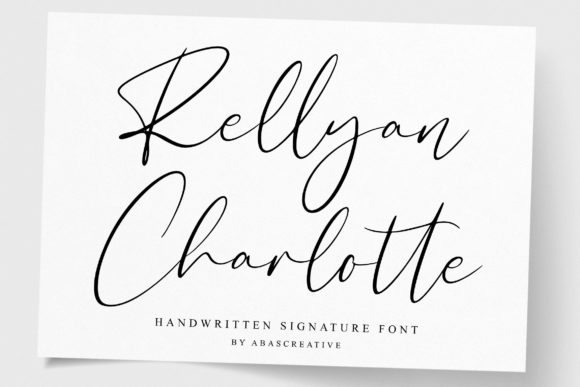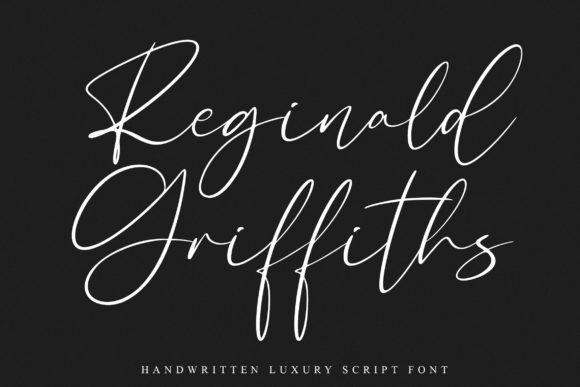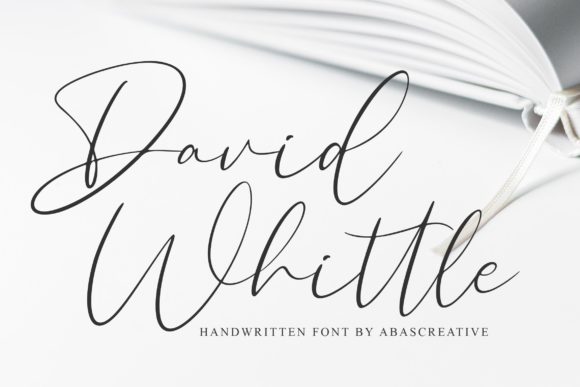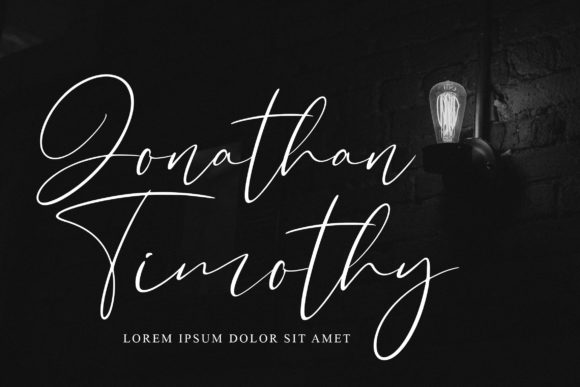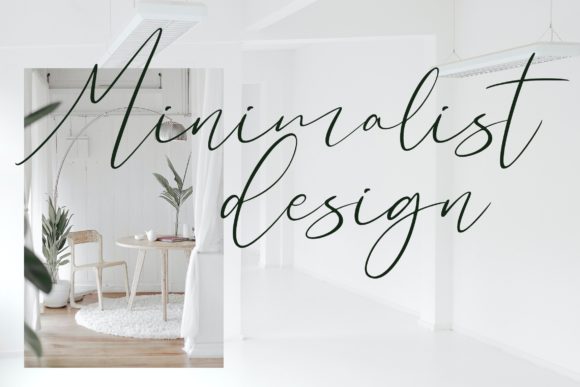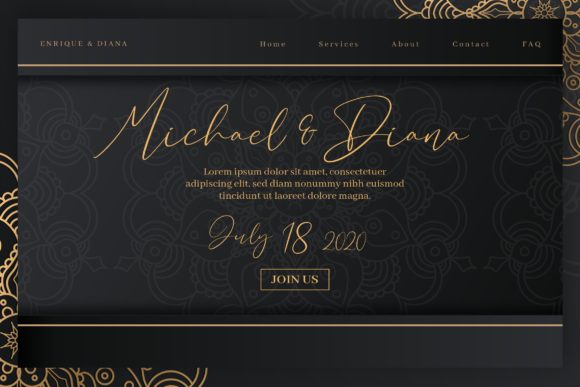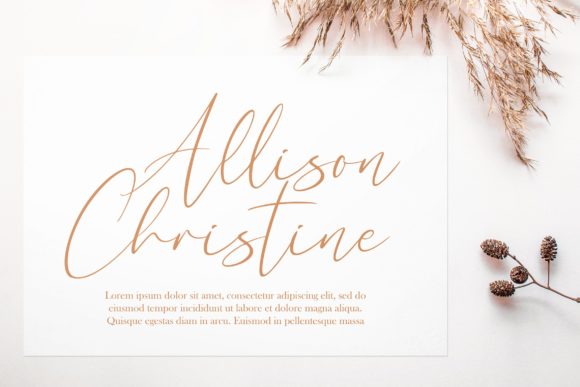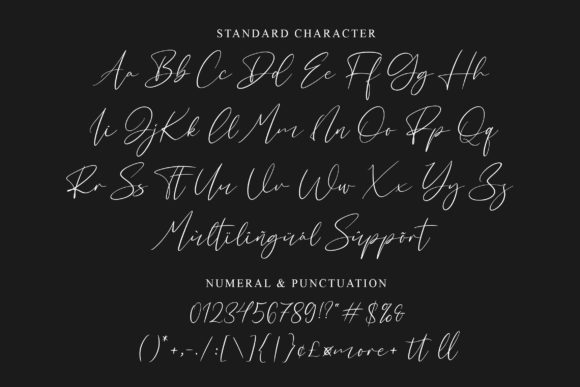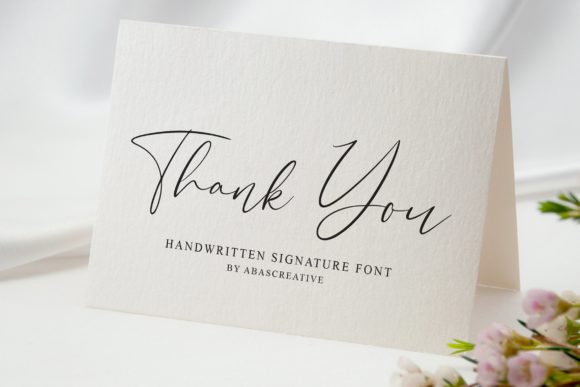
Rellyan Charlotte Font
Rellyan Charlotte is a modern calligraphy font with contemporary, sophisticated accents. It is perfect for branding, wedding invites and cards. The texture of the font expresses the beauty of handwriting.